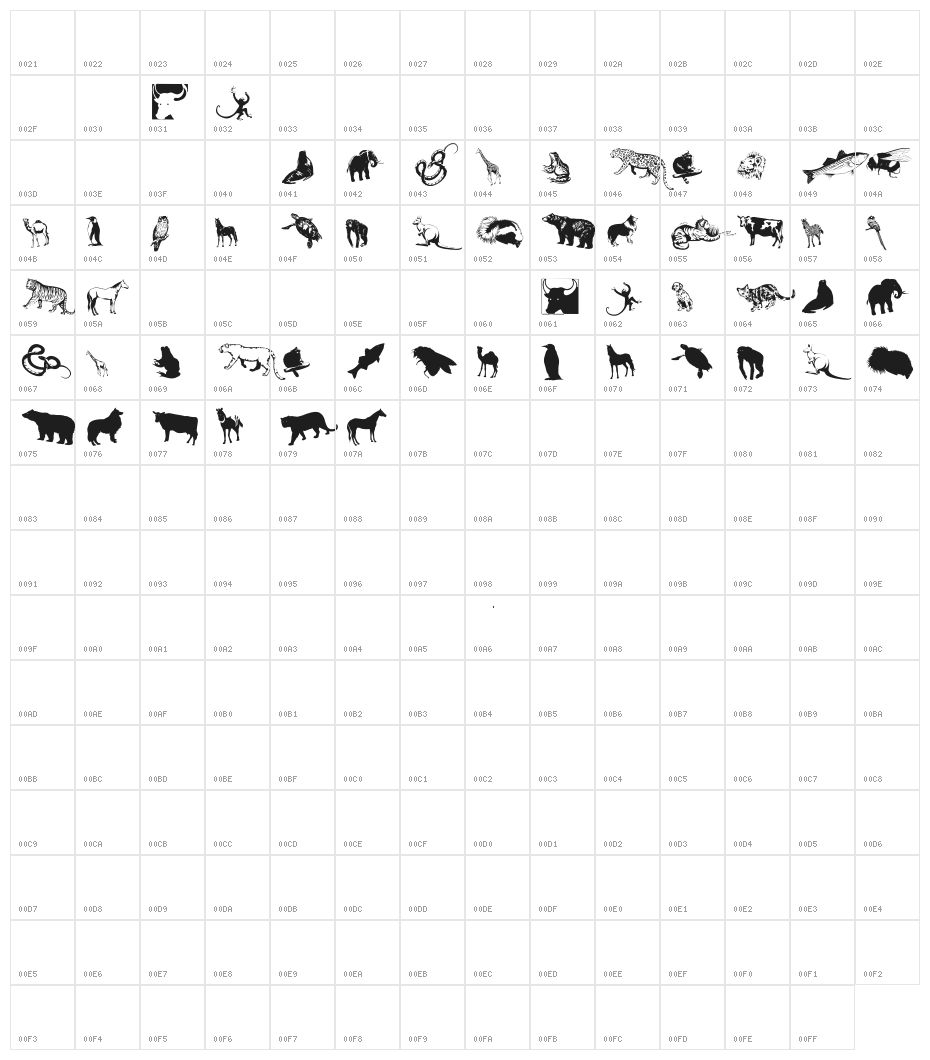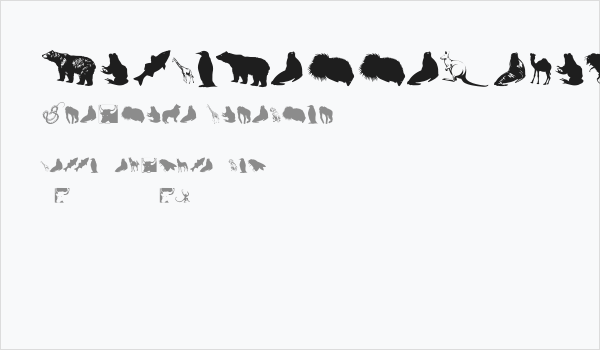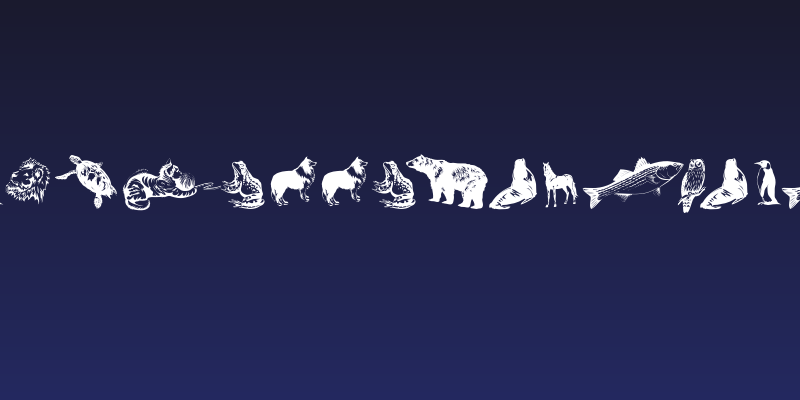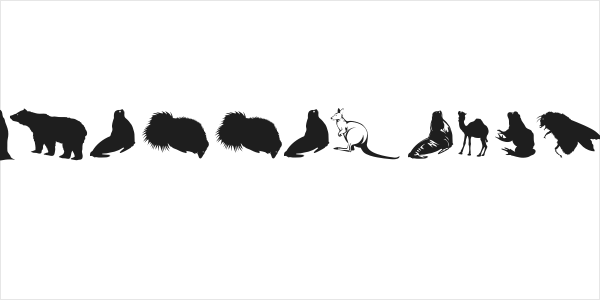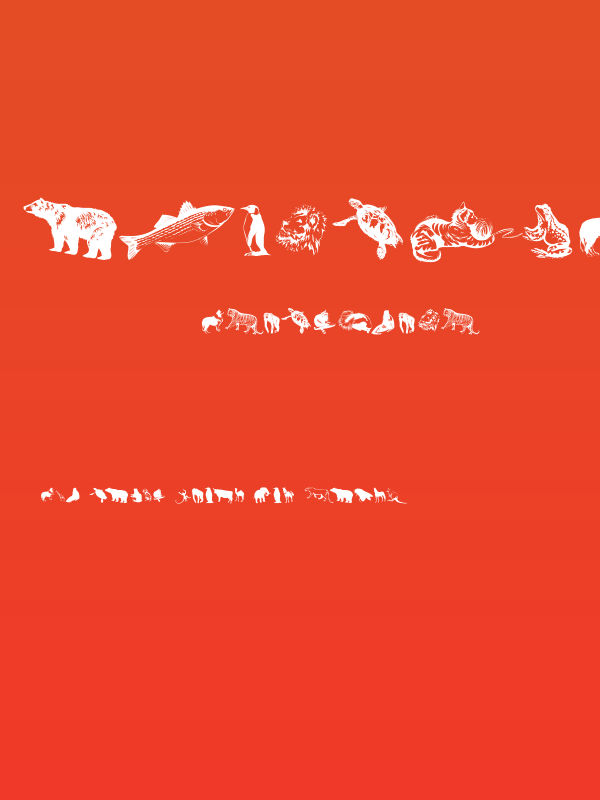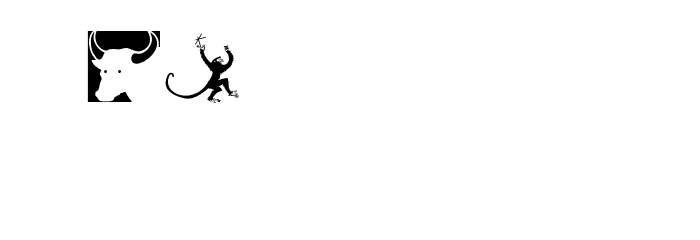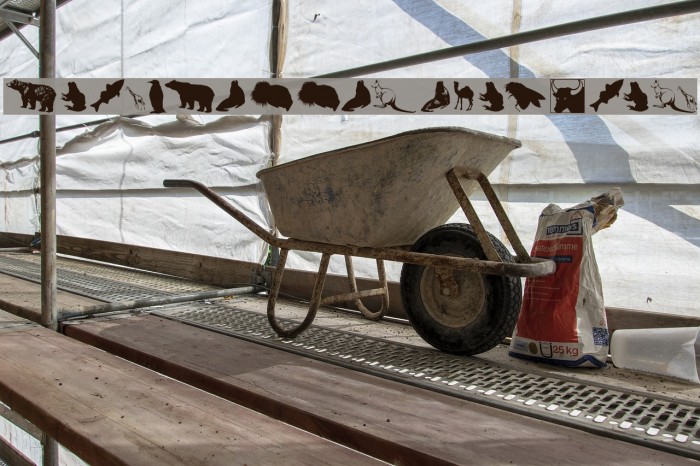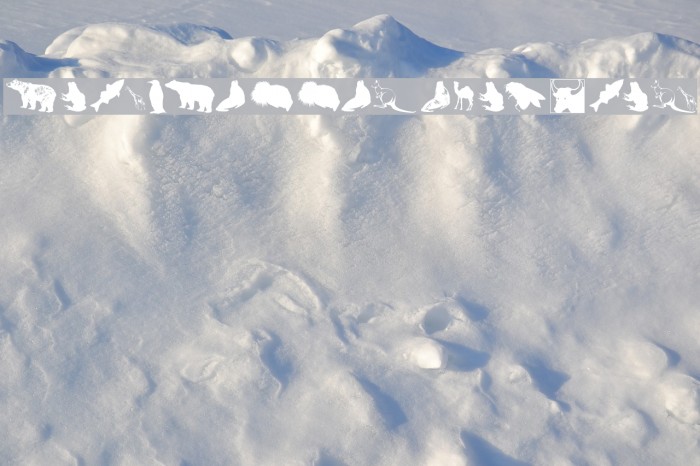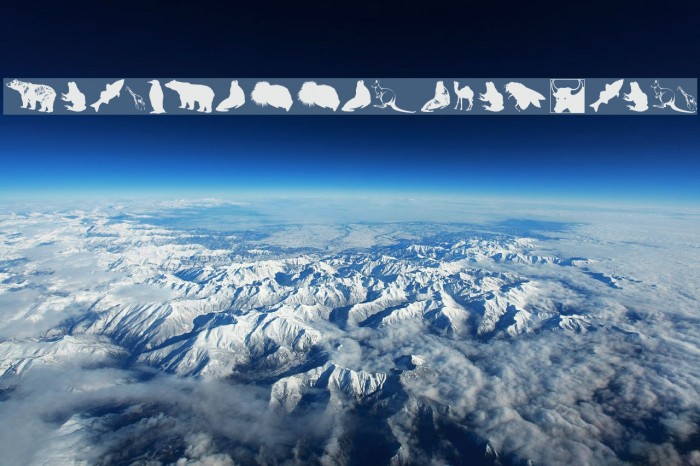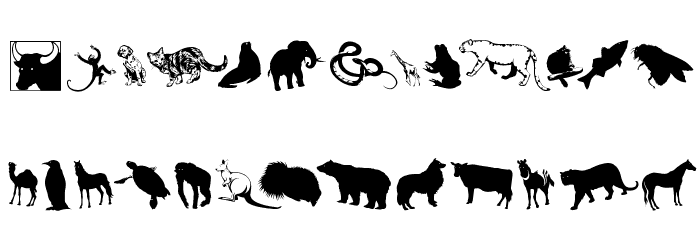
SilhouettesAnimalish Font
SilhouettesAnimalish Description
A collection of animal silhouettes featuring a variety of mammals, birds, reptiles, and aquatic creatures in a consistent black-and-white style. Each character is represented by a unique animal shape, with clear outlines and minimal interior detail, emphasizing the overall form and posture of each animal.
| Overall Style | Decorative, Playful |
| Use Case | Logos, Posters, Educational Graphics, Themed Headlines |
| Proposed Projects | Educational materials, children's books, wildlife posters, logo design, themed event graphics. |